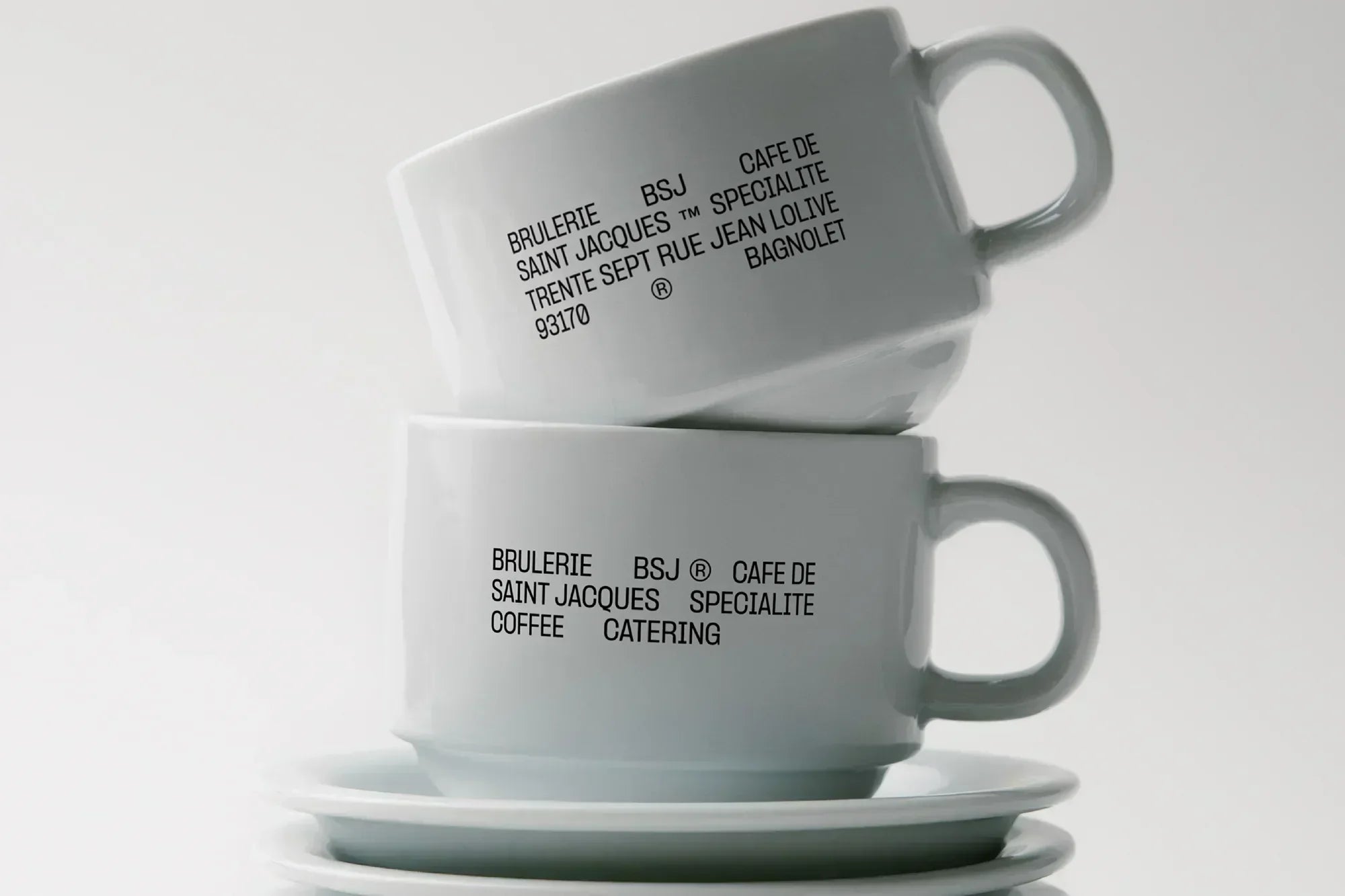
The label looks like something pulled from a roastery’s back-office filing system.
Net weight ticked off in three options. Grind selection laid out with hollow checkboxes. Origin field. Reference number. A sheet of perforated stamps, each one a self-contained product form waiting to be torn off and applied. For Brulerie Saint Jacques, a speciality coffee roastery operating a travelling barista and catering service across France, Paris and Lyon-based Studio Avenir has built an identity that borrows the visual logic of technical documentation and lets it carry the brand.
The decision to lead with utility is unusual for the coffee category. Speciality coffee tends to dress itself in warm browns, hand-drawn marks and analogue craft cues that signal artisanship through softness. BSJ says no to that. The label functions as a form, with the variables a roaster needs to communicate arranged with the structural clarity of a logistics document. “We designed the label in a way that emphasises the expertise of the roastery, drawing on technical layout conventions,” explains Clementine Cornu Thenard, Art Director & Co-founder at Studio Avenir.
Anchoring the system is a modular BSJ monogram that exists in three distinct forms. A bold, condensed wordmark handles primary identification. A hatched, line-filled version reads as a textured, almost printed-on-paper variant that animates labels and tape. A geometric badge mark, set within a soft polygonal outline, behaves like a stamp or seal. Each appears in different contexts. “There are indeed several ways to write BSJ, which allows for a more expressive and flexible identity, while enabling both the old and new lettering styles to coexist,” Clementine notes. “All of these lettering variations also help showcase the research and exploration behind the work.”
“We worked with two very different typefaces: one modular, and a more rounded script style," Clementine explains. “The client wanted to highlight the modular and adaptable nature of their event offering, while also giving the brand a new identity that feels more institutional and authoritative. We aimed to balance the rigid, angular aspect of the modular lettering with a more rounded typeface that feels accessible and authentic.”
Colour reinforces the dual logic as well. A dusty blue-grey sits as the primary tone across cups, saucers, sleeves and label stock, paired with near-black type and uncoated, textured papers. The palette was steered by the client’s preference for soft pastel tones, balanced by black to assert the brand’s more formal, authoritative register. The textured stock pulls the system back from clinical territory and gives it tactility.
Scale is an active variable throughout the project. The same BSJ mark that sits as a discreet badge on a porcelain cup expands to fill an entire poster, where COFFEE and BARISTA stack at heights that consume the page and the script tagline – Une expérience itinérante, soignée et profondément humaine – tucks in at the foot of the composition as a quiet caption. “The play on scale and contrast among the identity elements brings a playful and graphic dimension to the brand,” Clementine says. The compression and release between micro and macro applications give the system its rhythm.
That graphic confidence is a deliberate response to category convention. BSJ operates events ranging from 30-person seminars to large-scale activations of several thousand, and the brand needed to read as a professional infrastructure suited to those clients. “There are indeed many speciality coffee brands, so we aimed to distinguish BSJ’s image by creating a bold, highly graphic logotype that plays a central role in the identity,” Clementine explains.
The system extends across cups and saucers, perforated label sheets, paper tape printed with the BSJ marks at repeating intervals and large-format poster compositions that treat type as image. The tape is a quiet detail worth noting, a continuous strip alternating between the geometric badge, the hatched wordmark and the full address block, designed to seal boxes and packages while doubling as identity signage. Across every touchpoint, the same vocabulary recurs in different proportions: the form layout, the three monogram variants, the script and grotesque pairing, the dusty blue and the uncoated paper. Each element is doing administrative work for the brand while building its visual character.